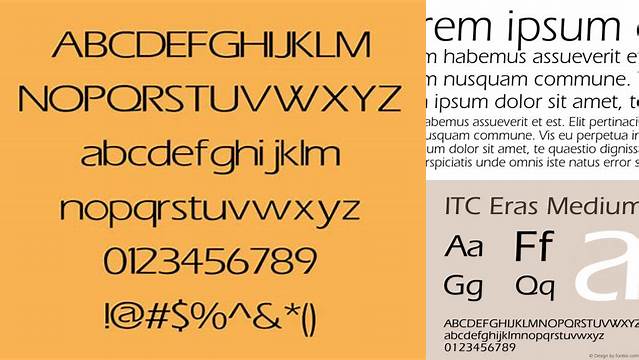
Hey guys! Ever stumbled upon a font that just screams classic? Well, let's dive into the ITC Eras Book font family, a typeface that's been around the block and still manages to look fresh and modern. This guide is your one-stop shop for everything you need to know, from grabbing a free download to understanding its history and best uses. So, buckle up and let's get this font party started!
What is ITC Eras Book Font? Unveiling a Design Icon
Alright, first things first: what exactly is ITC Eras Book? In a nutshell, it's a geometric sans-serif font designed by Albert Boton in 1985. It's part of the larger ITC Eras family, but the 'Book' variant is arguably the most versatile and widely used. The font is known for its clean lines, balanced proportions, and a distinct, almost mechanical feel. It's like the font equivalent of a perfectly tailored suit – timeless, elegant, and always in style. Because of this, it is a favorite for both print and digital designs. This font has been around for decades, and it is still utilized by designers all across the globe. ITC Eras Book, with its clear and readable design, transcends mere typography; it's a statement. The simplicity of its design makes it stand out. The characters' circular and geometric shapes create a sense of harmony and order. It is like the font version of a well-organized office; it looks professional and is easy to understand. The design is versatile and can be used in numerous applications. Whether it is for headlines, body text, or even in branding, ITC Eras Book adapts to various design needs. Because of this, it has become a staple for both seasoned graphic designers and beginners. It's a font that has stood the test of time, consistently delivering a clean, readable, and aesthetically pleasing experience. Its enduring popularity is a testament to its quality and ability to meet the demands of a constantly evolving design landscape. The font's success also highlights the importance of good typography. It demonstrates that the right font can transform the overall look of any design. From the initial conception to the final product, the choice of a font is a critical decision. ITC Eras Book is like the backbone of a good design, and it is a choice that is hard to go wrong with. When considering the ITC Eras Book, it is more than just a font; it is a legacy. It is a design tool, a creative partner, and a symbol of visual excellence. Its continued presence in the design world is a clear indication of its enduring quality. The story of ITC Eras Book demonstrates the power of design. This story emphasizes how a well-crafted font can impact how people view design.
ITC Eras Book isn't just a pretty face, either. Its legibility makes it a workhorse for a wide range of applications. Think about it: a clear font is a must-have. The font's clean aesthetic makes it especially perfect for those looking for a modern style. The geometric nature of ITC Eras Book provides a fresh look. It keeps the text looking modern and clean, which makes it perfect for digital and print designs. This font is more than just a collection of letters and symbols; it's a means of conveying information and making an impression. In terms of versatility, it works well for large headlines, medium body text, and even for the smallest of captions. The font's adaptability allows it to be included in both print and digital designs. Whether it is for a website, a book, or a billboard, ITC Eras Book can make your design look and read its best. Its ability to maintain its clarity across a range of formats shows how valuable and adaptable this typeface is. Its wide range of applications highlights ITC Eras Book's status as a timeless classic. The font is more than just a selection of characters; it is a complete design tool that meets many different needs.
Conclusion: Embrace the Elegance of ITC Eras Book
So there you have it, folks! ITC Eras Book is a powerful and versatile font family that deserves a spot in every designer's toolkit. It is an excellent choice for many applications. Whether you're working on a website, a print project, or anything in between, this font will help you achieve a clean, modern, and professional look. The font has a classic design that keeps it in style, decade after decade. With its clean lines, readability, and timeless appeal, it's a font that can elevate any design. It's a fantastic choice for any designer who's after a balance of sophistication. Make sure you use it ethically. Remember to always source fonts legally and respect the creators' rights. Make the most of its flexibility, and you'll be creating amazing designs. So, go forth, download (legally, of course!), and start creating! Happy designing! I hope this guide has been helpful, and here's to your next design project!